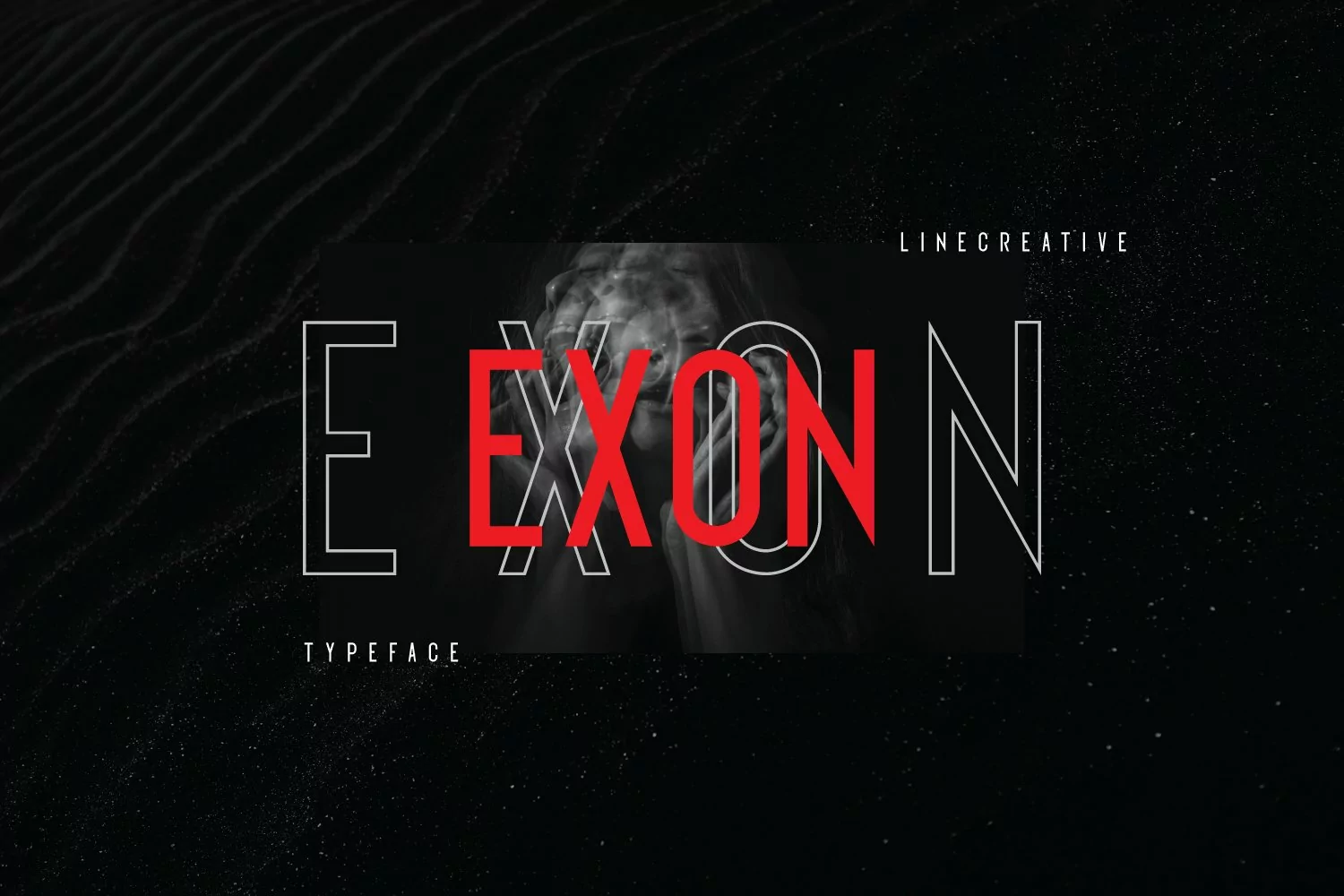
Looking simple and charming. This is the reason why we wanna
offer you the Exon font. This font gives the impression of being clean and
extremely elegant.
This font would be perfectly used as the headline, poster,
title, other graphic design. The Exon has 2 variants namely: Regular and Outline